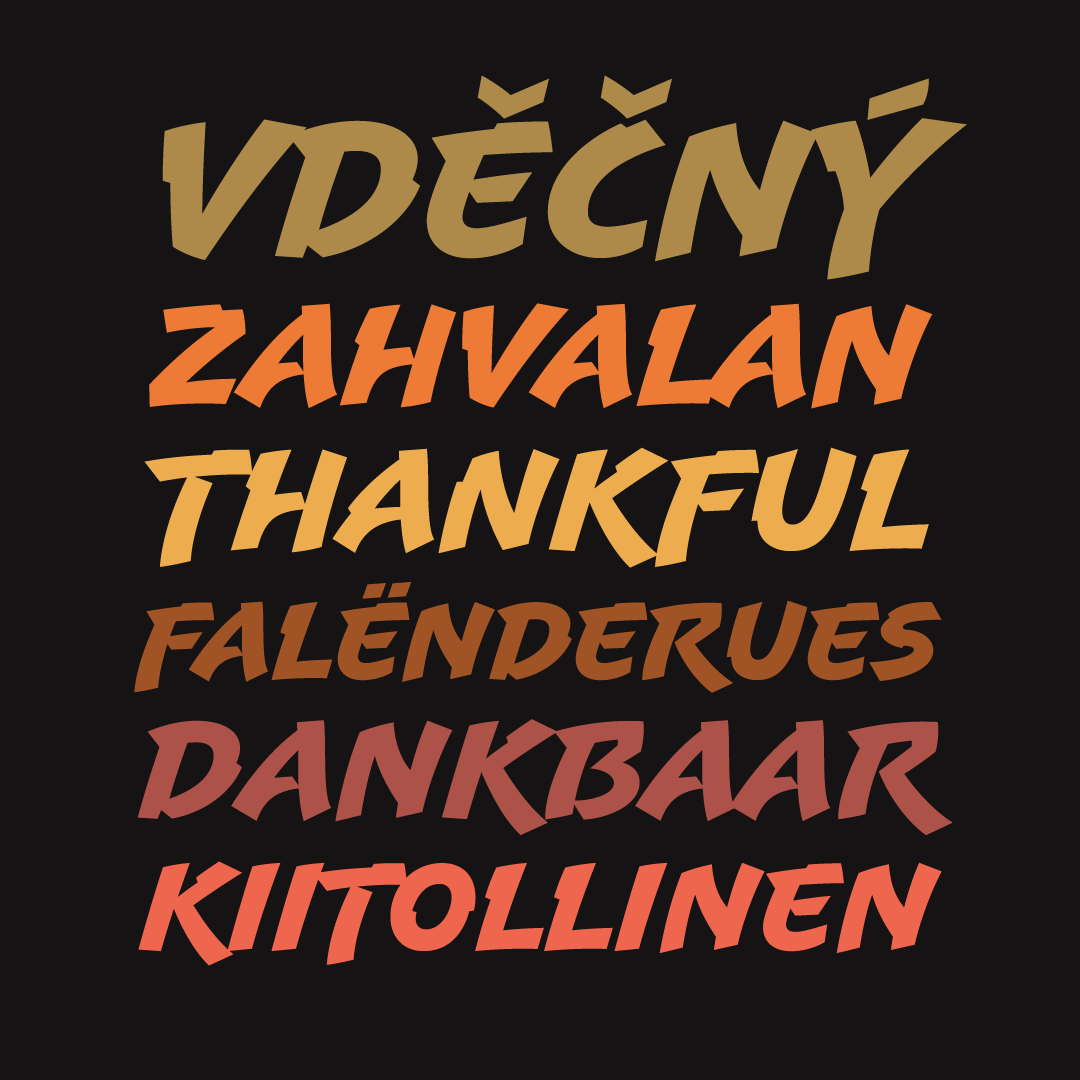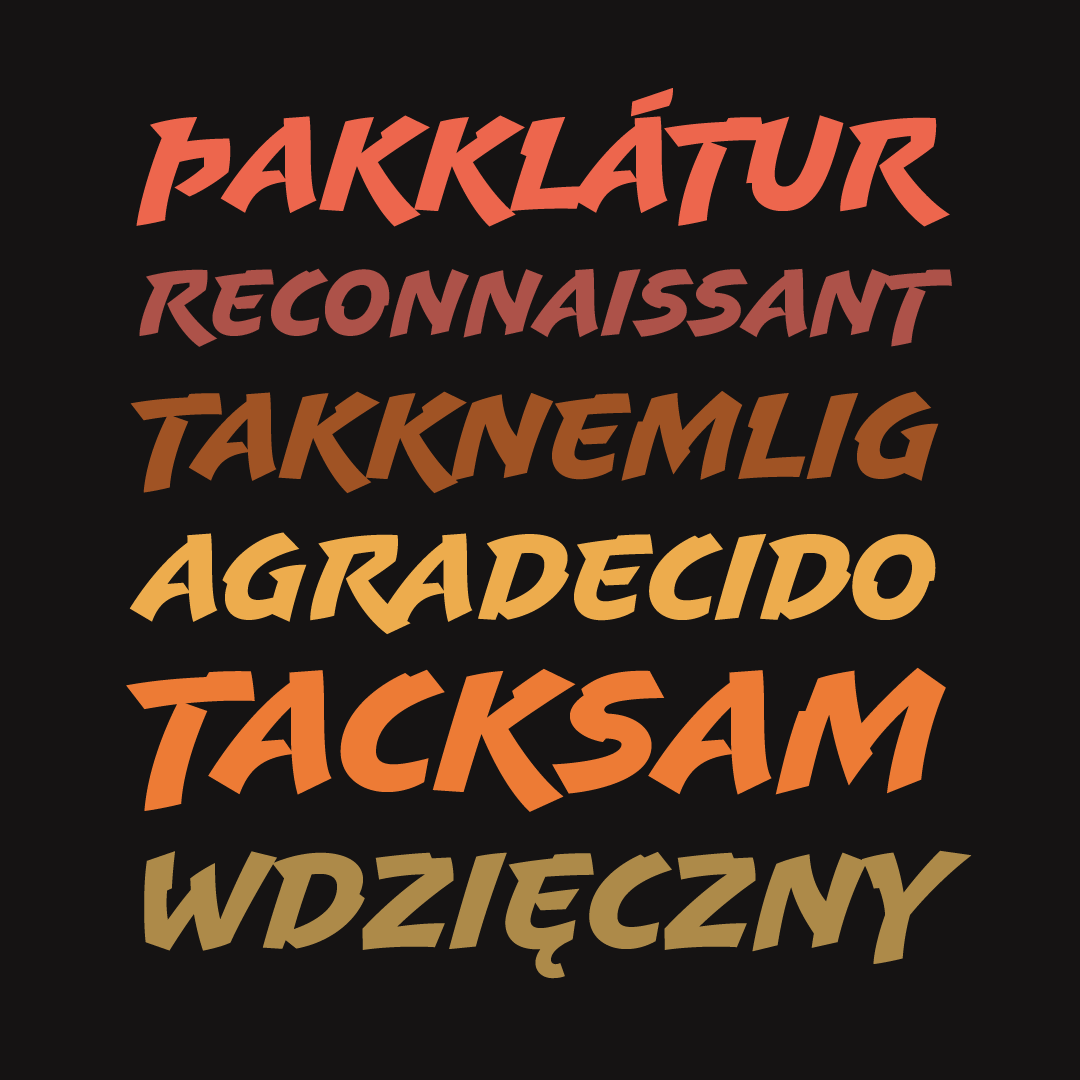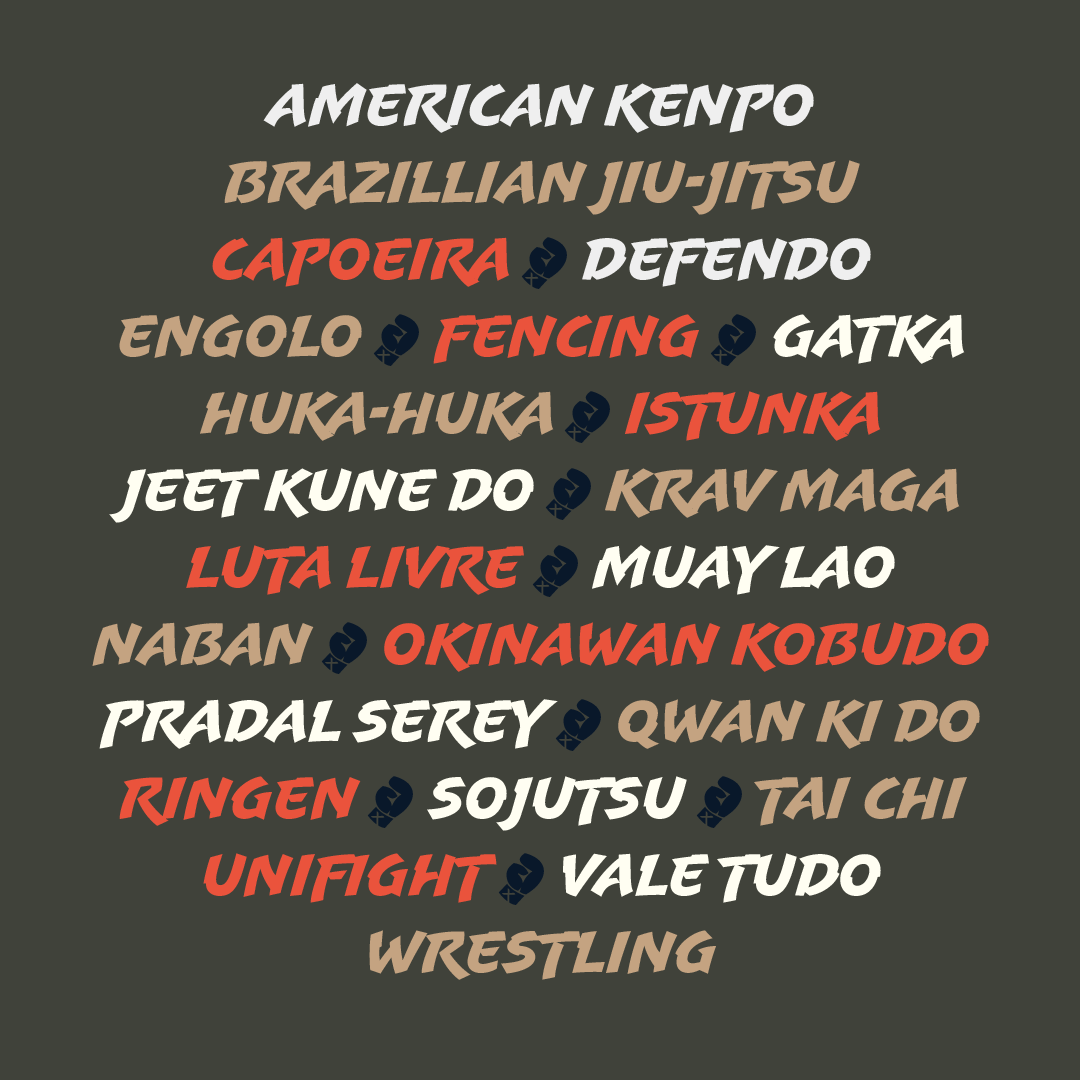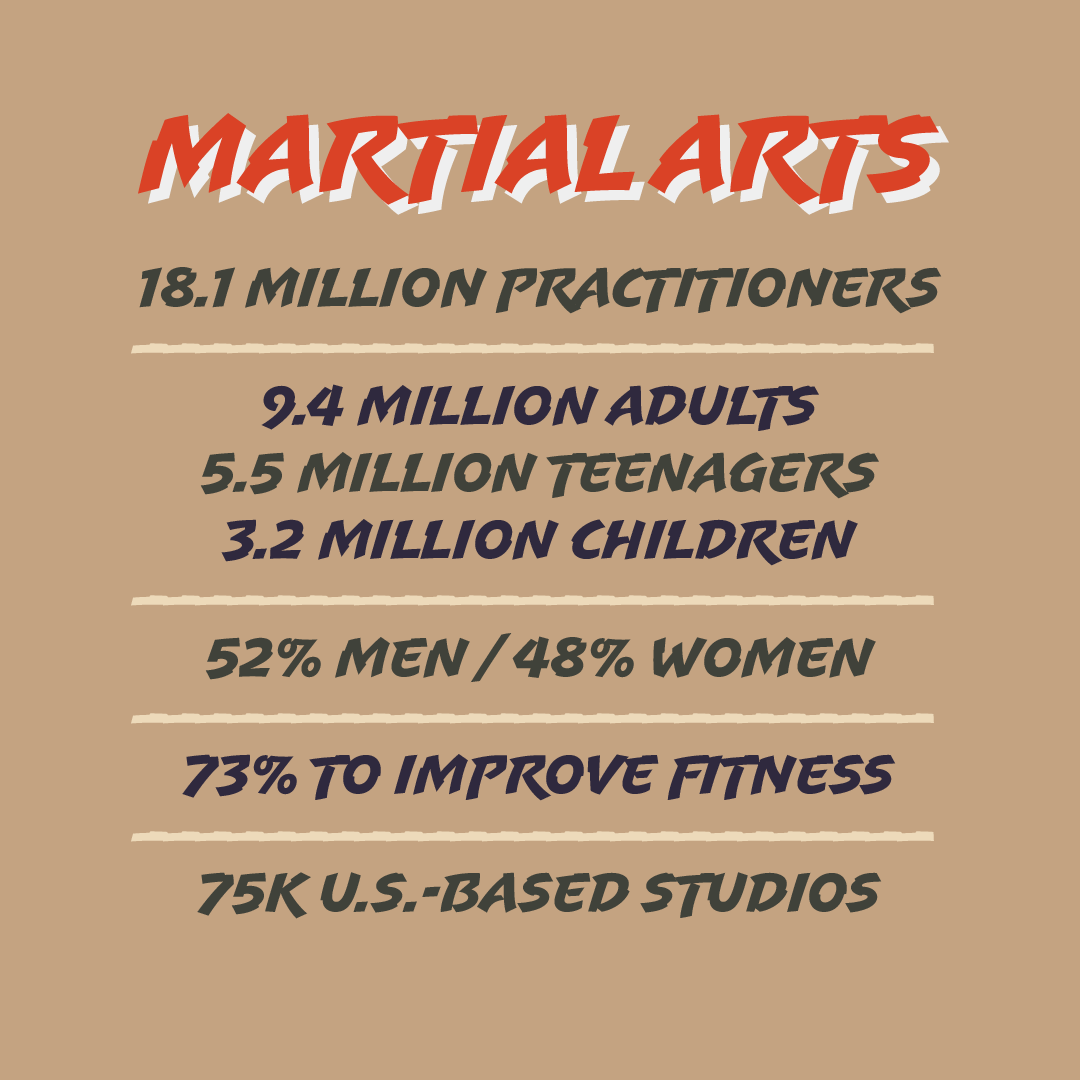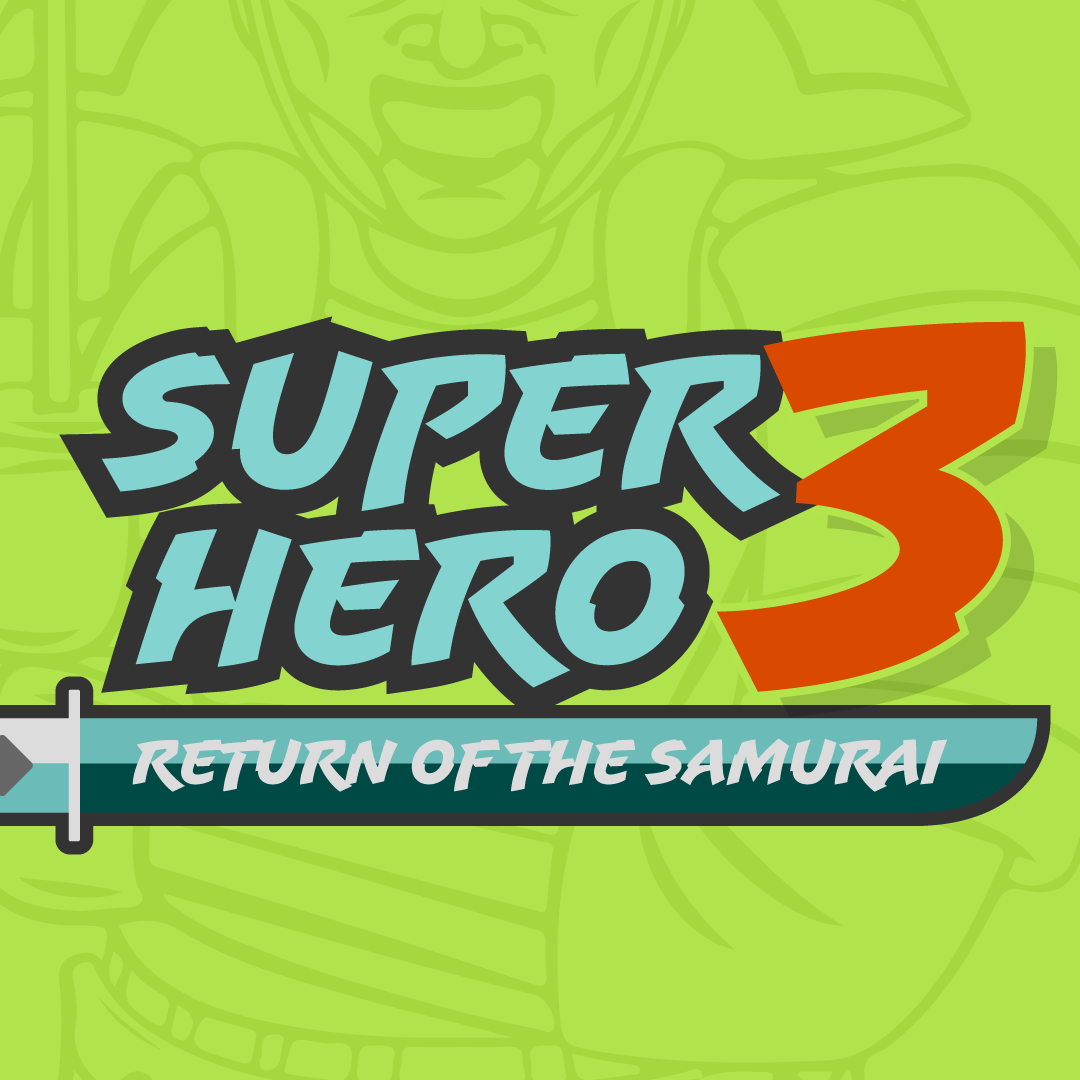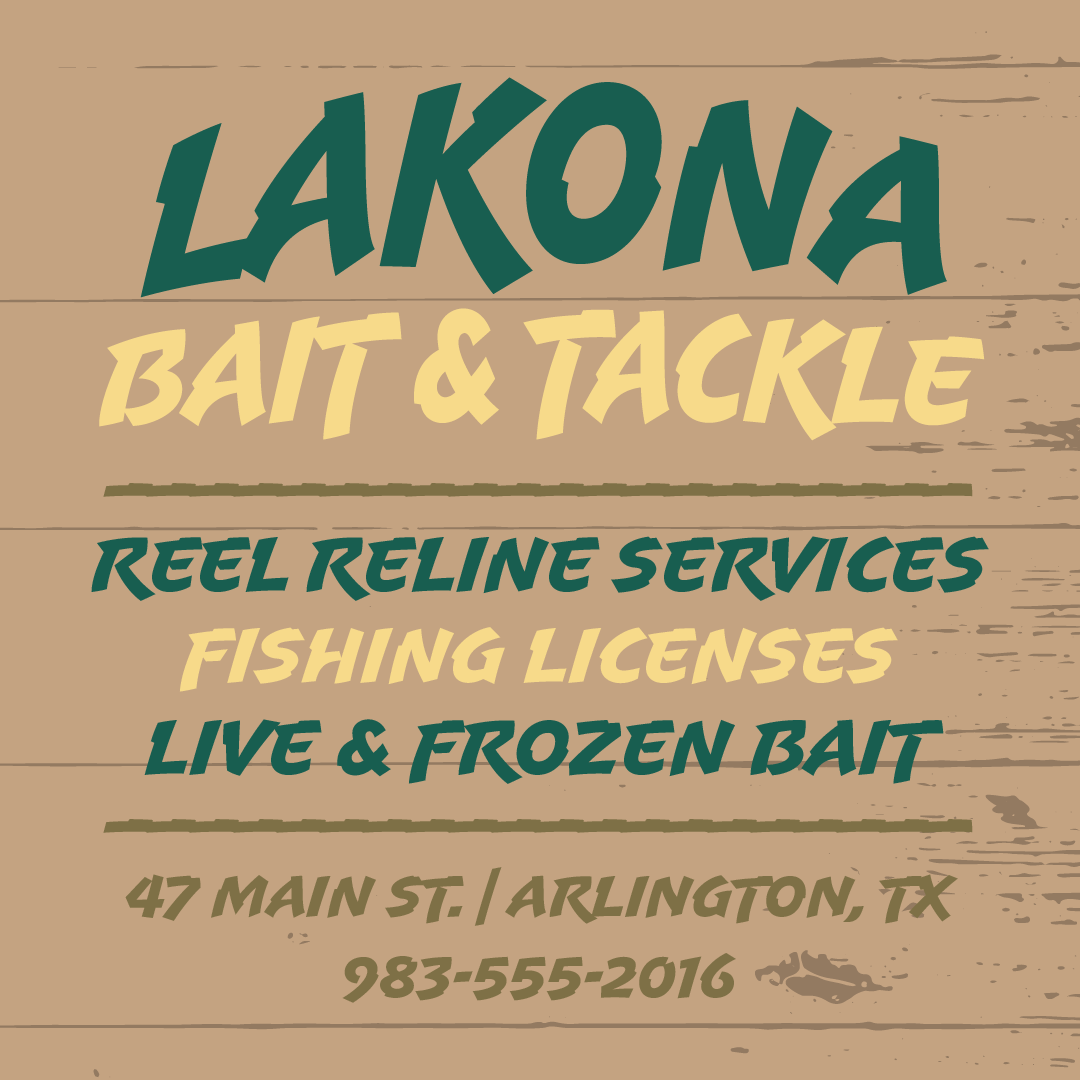
Uppercut Angle™
An action-oriented design
always in good form.
Designed by Joachim Müller-Lancé
Joachim Müller-Lancé’s Uppercut Angle is a rather sporting fellow, originally developed for the Krav Maga training center of San Francisco (Krav Maga is a simple, efficient self-defense system that has become equally popular in Hollywood and with law enforcement). Joachim has spent several years training, hitting things and people whenever he needs a break from kerning.
The design idea sprang from pencil sketches for the center’s new identity, where it can be seen on the school’s t-shirts and other articles. Uppercut Angle’s shapes are not calligraphic or handwritten, but more like lettering seen in comics or sports logos. Its brush movements are imaginary—not too literally brushy. The shapes are economical and efficient; simplicity makes the font versatile, holding up in small as well as big sizes.
Uppercut Angle is decidedly analog, muscular but not bulky, with the fluid but determined movements of a boxer or martial artist – not theatrical but powerful, fast, confident and dynamic.
Version 1.3 is a significant expansion of the glyph repertoire that increases language support to 329, including Vietnamese, Oceanian, and more.
Additional features include: Kerning, Ordinals, Fractions, Localized Forms, Slashed Zero, Subscript, Superscript, Denominators, Numerators, and Ornaments.